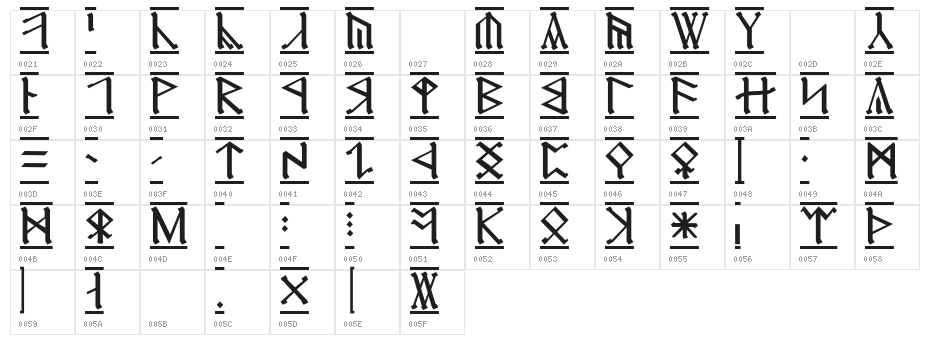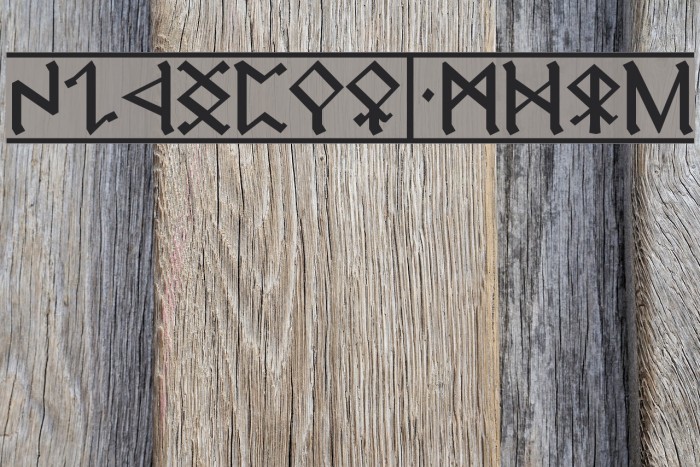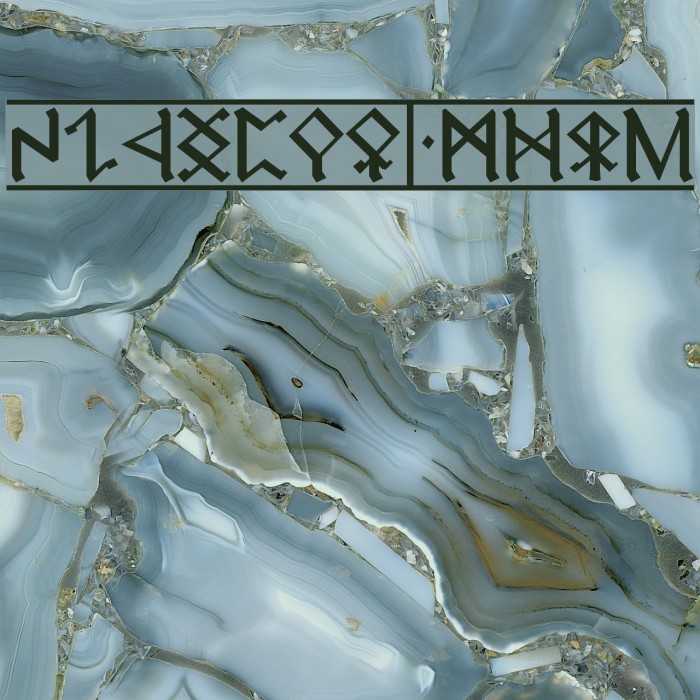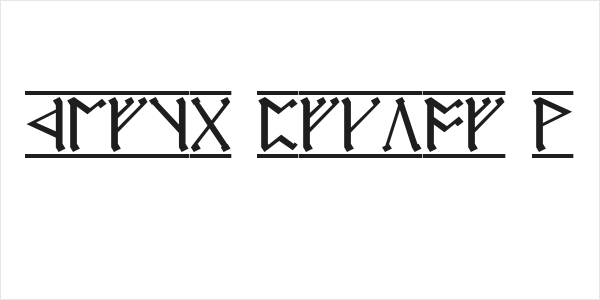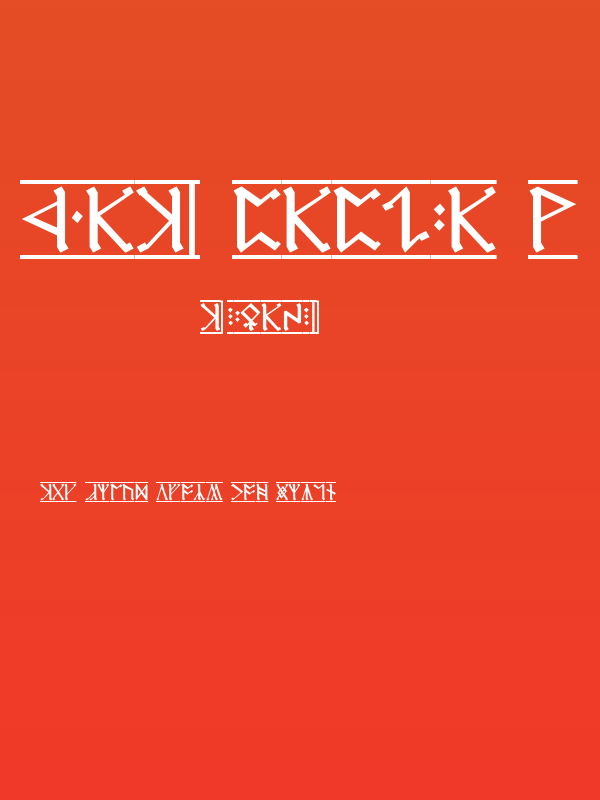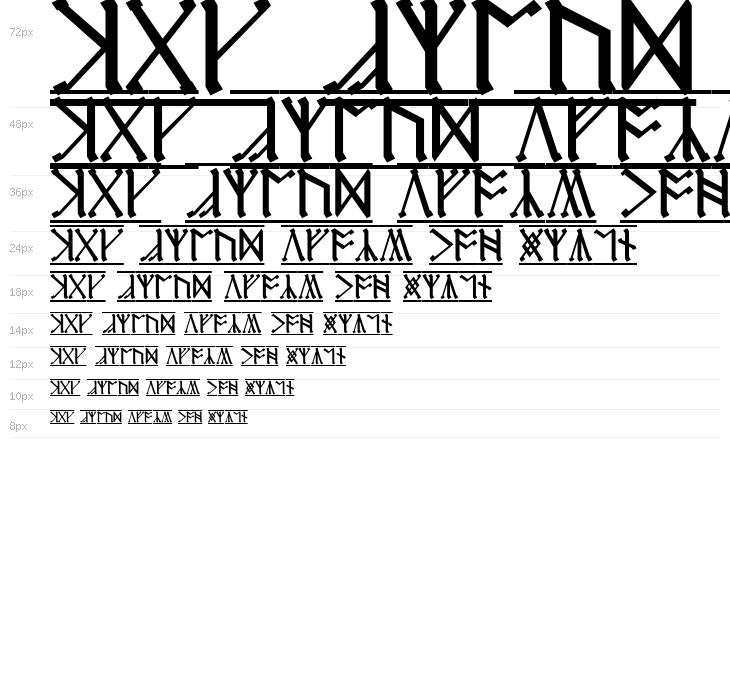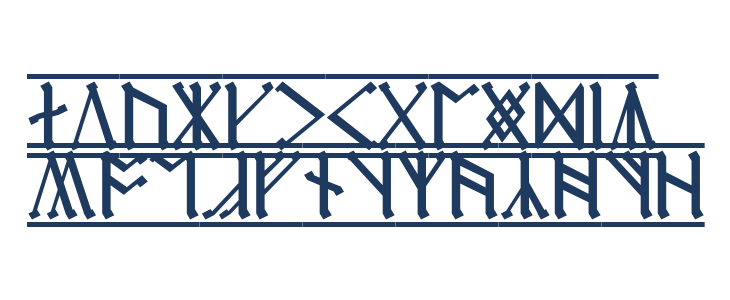
Cirth Erebor 1 Font
Cirth Erebor 1 Description
This script is a decorative and stylized representation of runic characters, reminiscent of ancient inscriptions. The characters are angular with sharp edges and a geometric structure, giving them a distinct and bold appearance. Each letter is crafted with a sense of symmetry and balance, often featuring pointed tips and intersecting lines. The overall design evokes a sense of mystery and historical depth, making it suitable for fantasy-themed projects. The characters are evenly spaced, maintaining a consistent visual rhythm across the text.
| Use Case | Logos, Headlines, Themed Events |
| Proposed Projects | Ideal for fantasy-themed designs, game titles, book covers, or any project requiring an ancient or mystical aesthetic. |